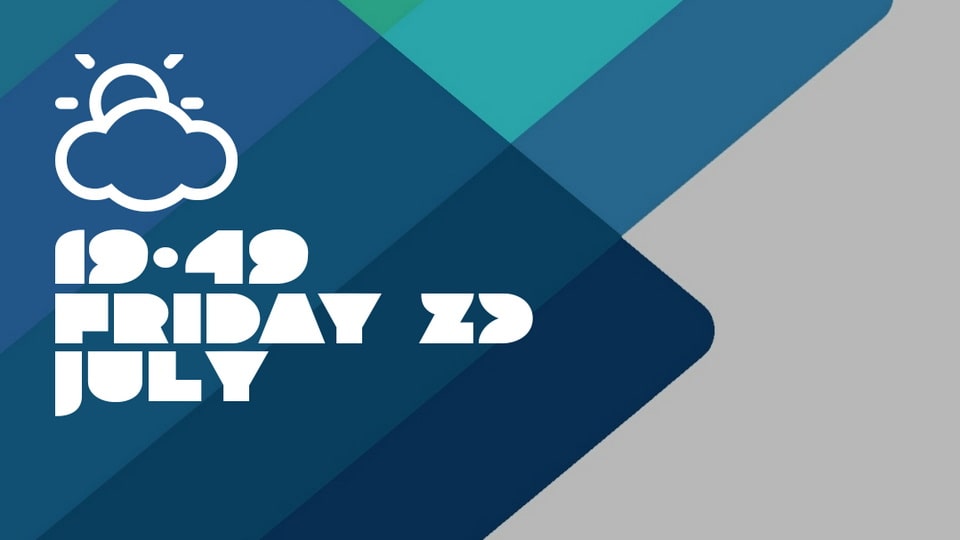
Download AW Blackeyed font, a geometric typeface initially created for the home screen clock on the android phone. The font includes basic Latin and Greek scripts.
Designer: Manos Gerasidis